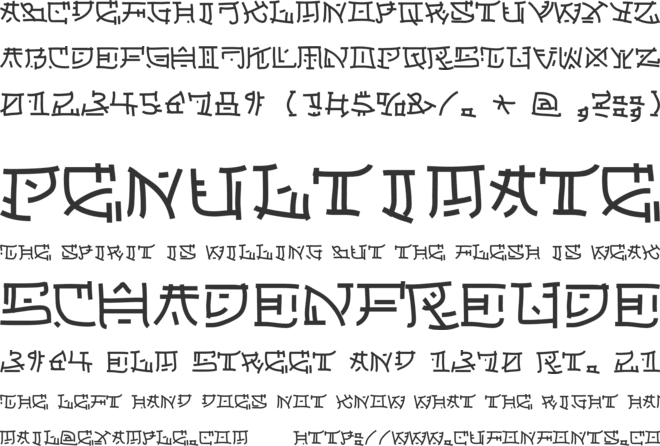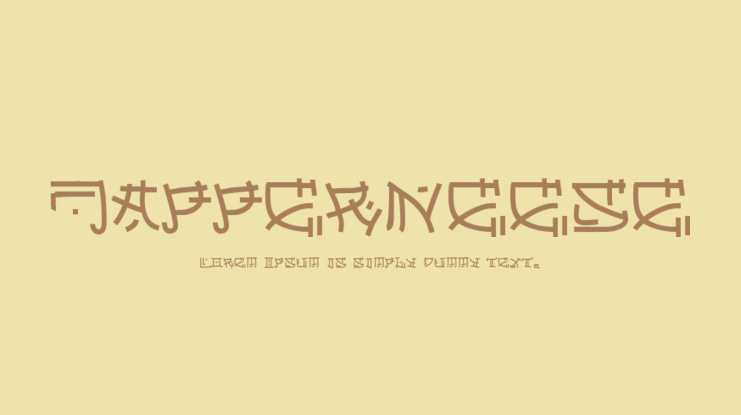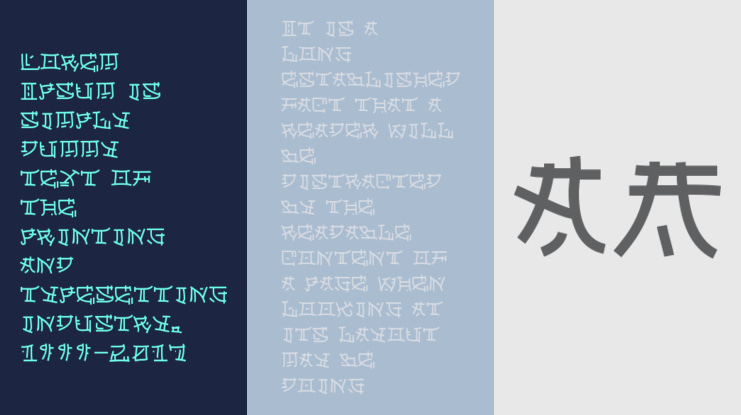
Japperneese Font
This font is really a sketch to a font coming sometime in the future... "sketch" sounds so incomplete, why release it then? Well, after looking at the font I thought I'd share it with the world - even though it was made quite fast it still gives a good impression...some characters could be more precise - but after all this is just a sketch!
ps. the font looks the best with massive text!